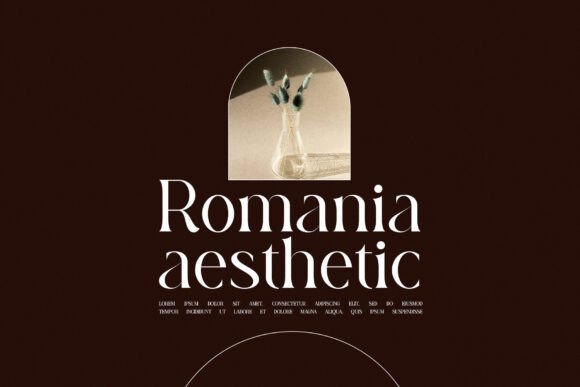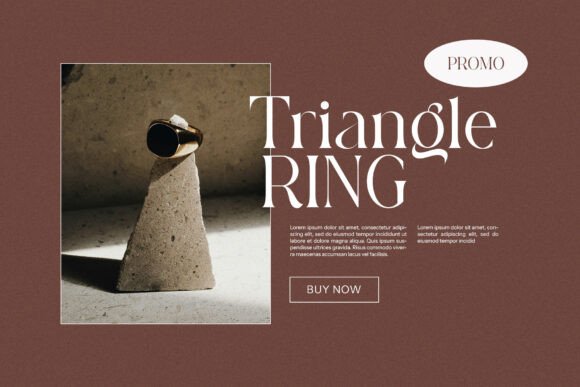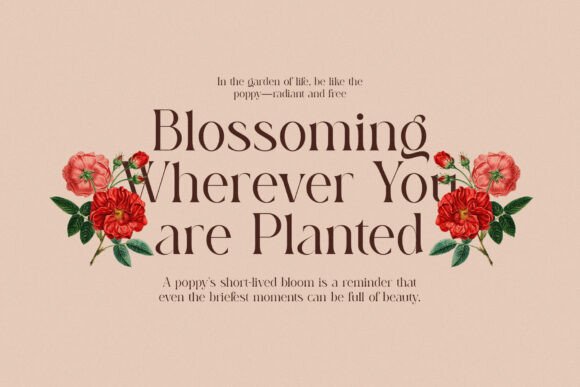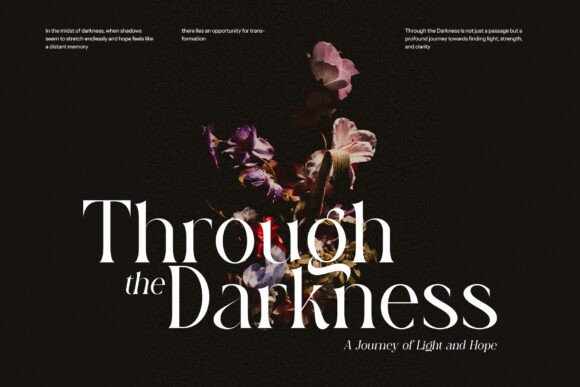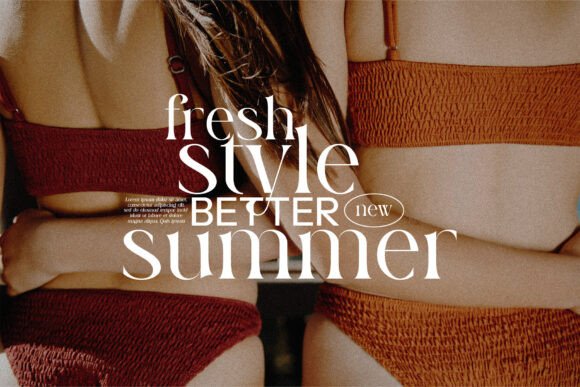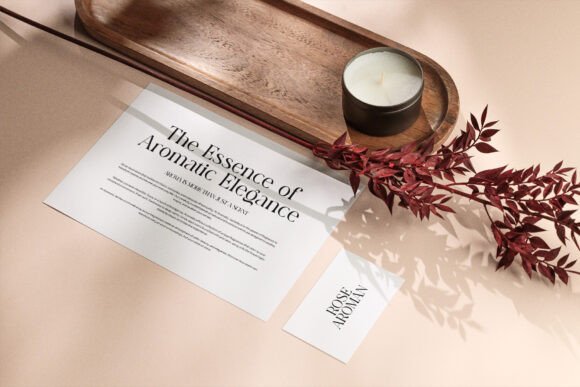
The Elegance of Englis Font: A Designer’s Delight
I still remember the project that led me to discover Englis Font. I was working on a wedding invitation design, and my client was adamant about finding the perfect font – elegant, sophisticated, and timeless. I scoured the internet, tried out dozens of fonts, but nothing seemed quite right. That was until I stumbled upon Englis Font. Its classic serif design and smooth lines immediately caught my attention, and I knew I had found the one.
An Honest Review of Englis Font
- ✨ Elegant serif design with a classic and stylish look
- ✅ Smooth lines and small decorative strokes for a timeless feel
- 💯 Perfect for formal designs, invitations, and high-end branding
- 🎨 Highly versatile and works well in both digital and print formats
While Englis Font is an excellent choice, it’s not without its quirks. For instance:
- 🤔 It may not be the best choice for body text due to its serif design and elegant feel, which can be overwhelming in large blocks of text.
- ⚠️ Some users have reported issues with kerning, particularly when using the font at smaller sizes.
- Experiment with OpenType features, such as stylistic alternates, to add visual interest to your design.
The Designer Inspiration Behind Englis Font
Englis Font was inspired by the classic typography of the 18th century. Its designer sought to create a font that embodied the elegance and sophistication of the era, while still being highly legible and versatile. The result is a font that feels both timeless and modern.
| Font Name | Englis Font |
| Author | Graphicxell |
| What is the best use for Englis Font? | Englis Font is perfect for formal designs, invitations, and high-end branding projects where a touch of elegance is needed. |
| Is Englis Font suitable for body text? | While Englis Font can be used for body text, it may not be the best choice due to its elegant feel and serif design, which can be overwhelming in large blocks of text. |
| Are there any similar fonts to Englis? | Yes, some similar fonts to Englis include Playfair Display, Merriweather, Lora, and Libre Baskerville. |